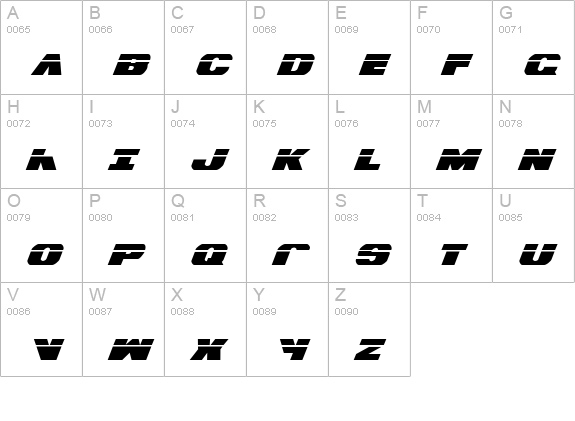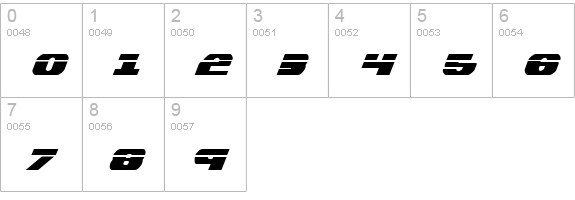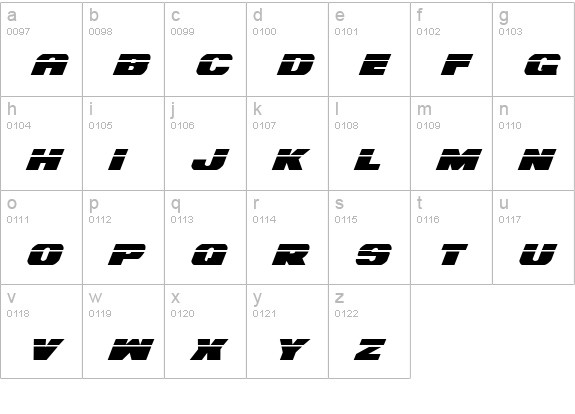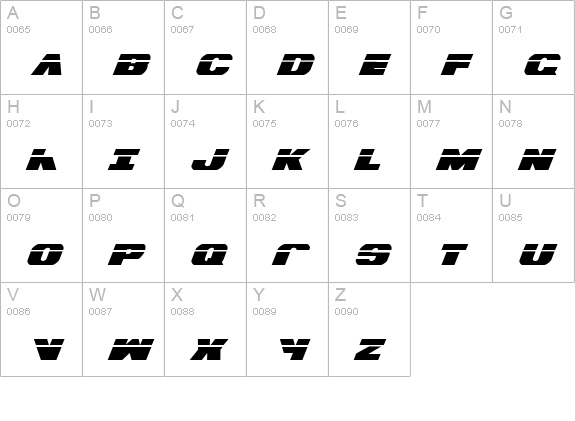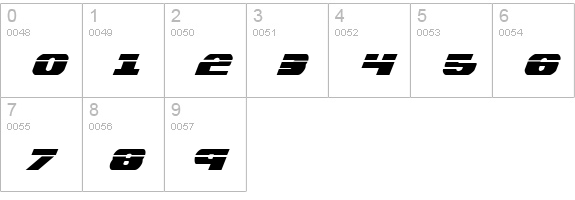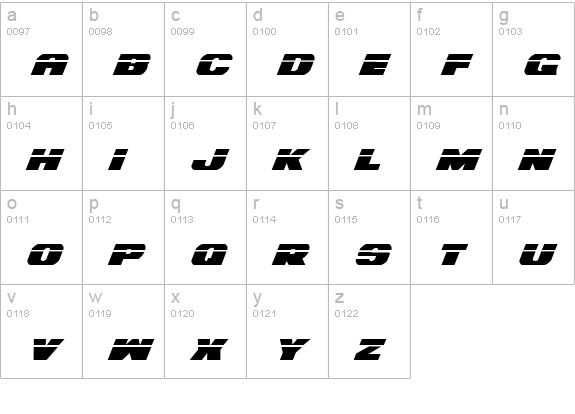
Bummer Laser Italic is a distinctive, italic variant in the Bummer typeface family \xE2\x80\x94 well suited to design and typography projects.
Bummer Laser Italic font is a stylish and modern typeface that exudes a sense of edginess and creativity. Its sleek and sharp design makes it perfect for adding a contemporary touch to any project. The italicized letters give a sense of movement and dynamism, making this font particularly well-suited for designs that aim to make a bold statement. What sets Bummer Laser Italic font apart is not just its striking appearance, but also the fact that it is available for free. Yes, you read that right - this stunning font can be downloaded at no cost from FontsMarket.com. Whether you're working on a logo, poster, website, or any other design project, Bummer Laser Italic font is sure to elevate your work and make it stand out. Don't miss out on this fantastic opportunity to enhance your designs with this unique and eye-catching typeface!